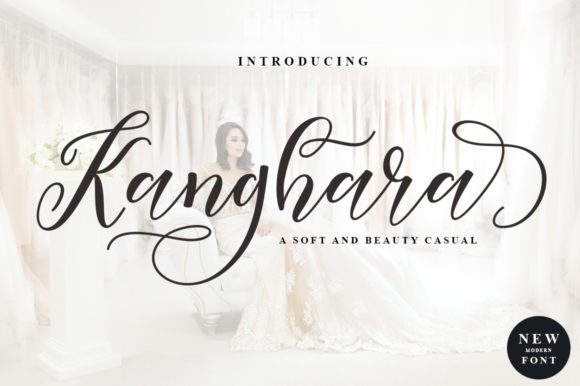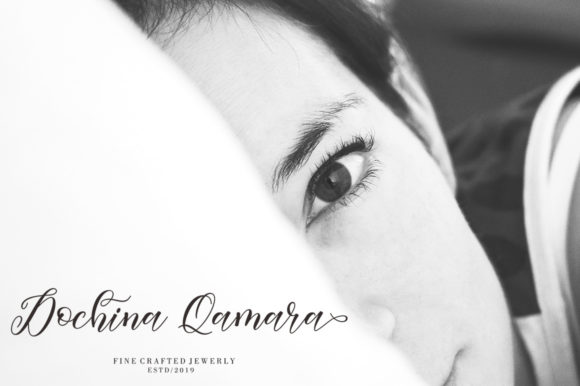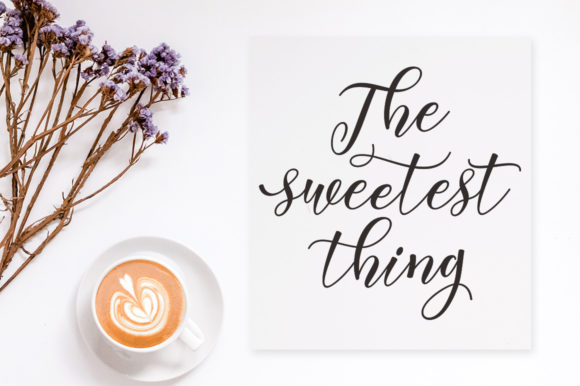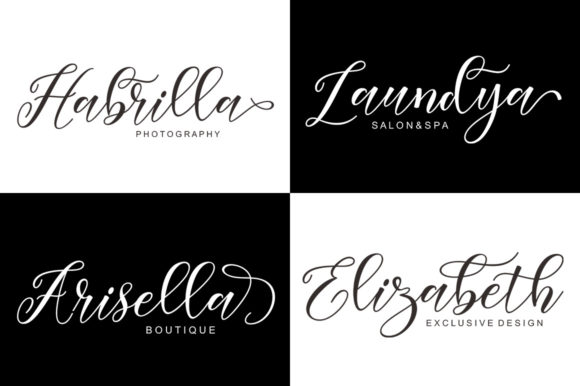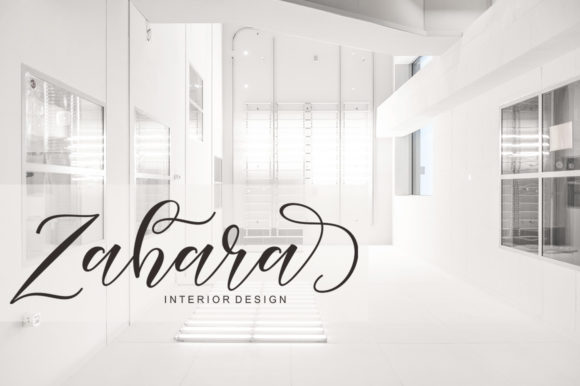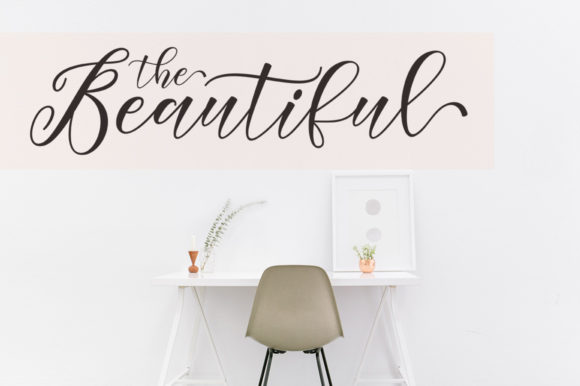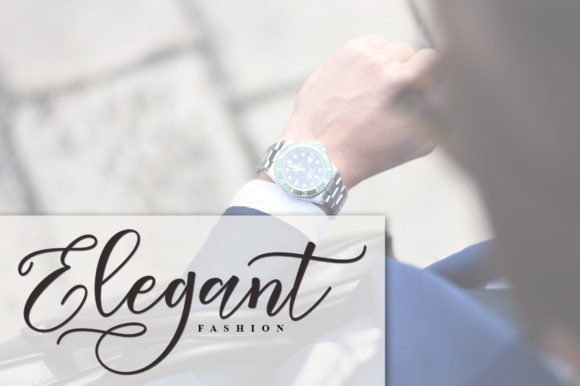
Kanghara Font
About Kanghara Font
The Kanghara is a calligraphic script font with varying baseline. It has an elegant, clean, and feminine style and includes smooth lines.
It’s perfect for logos, magazines, menu’s, books, invitations, and much more!
Give all your designs a wonderful homemade touch with Kanghara.